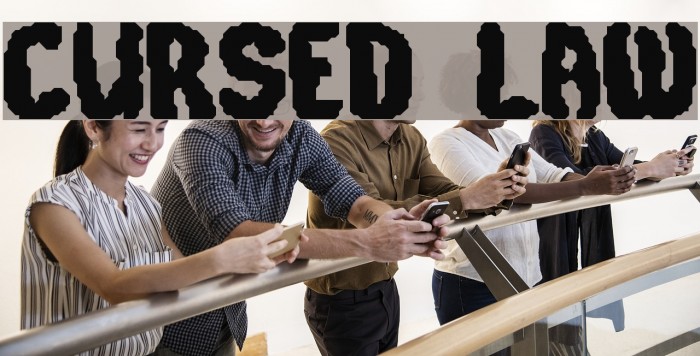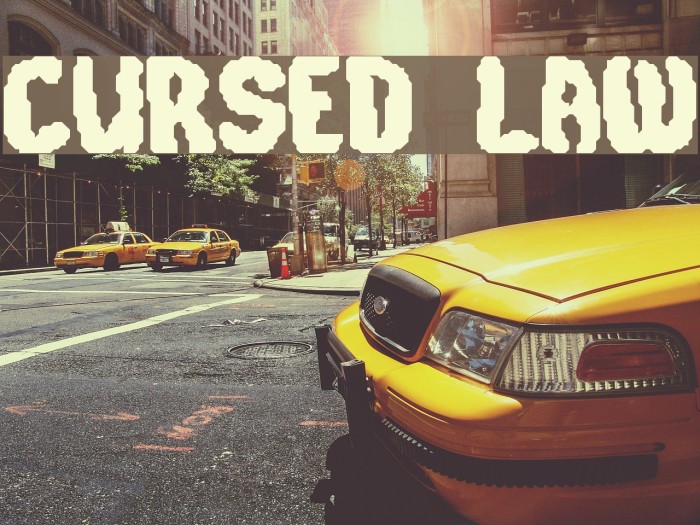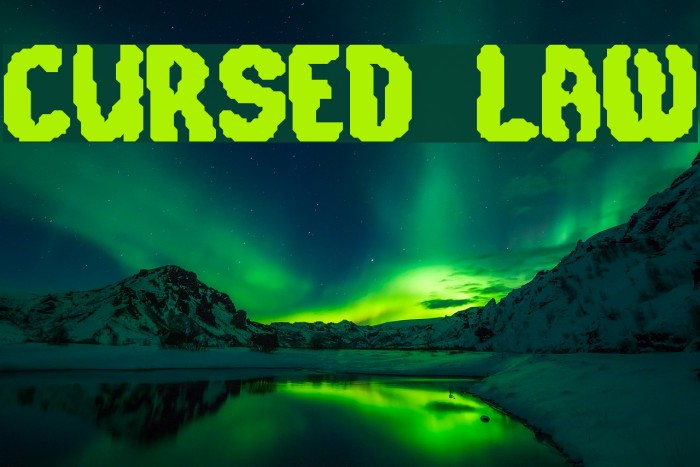
Cursed Law Font
This font features a bold and rugged design with irregular, jagged edges that give it a distressed and grungy appearance. The characters are thick and heavy, creating a strong visual impact. The style is reminiscent of hand-carved or stencil-like lettering, which adds a raw and edgy feel. The uppercase and lowercase letters maintain a consistent weight, while the numbers and special characters follow the same bold and rough aesthetic. This font is ideal for projects that require a bold statement or a rebellious, unconventional look.
A bold, rugged font with jagged edges and a distressed, grungy style.
- Proposed Projects: Perfect for album covers, posters, street art, and edgy branding projects.
- Overall Style: Grunge, Edgy, Distressed
- Use Case: Headlines, Posters, Branding